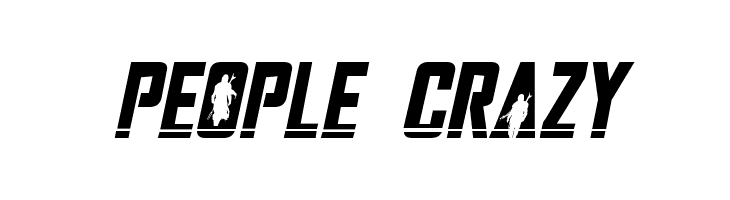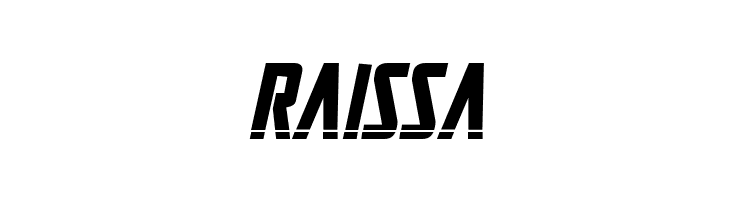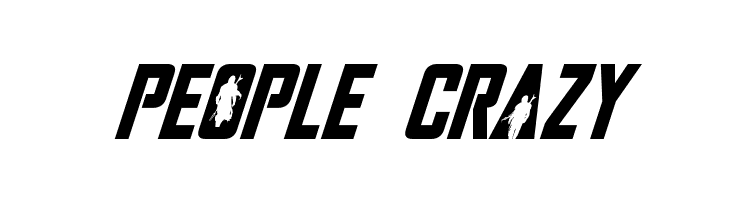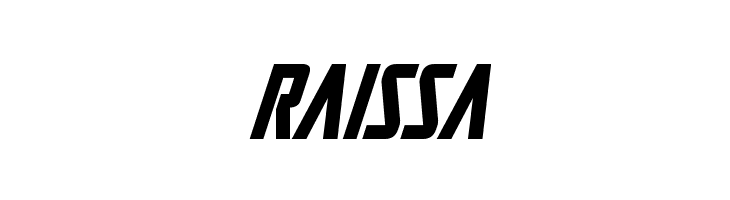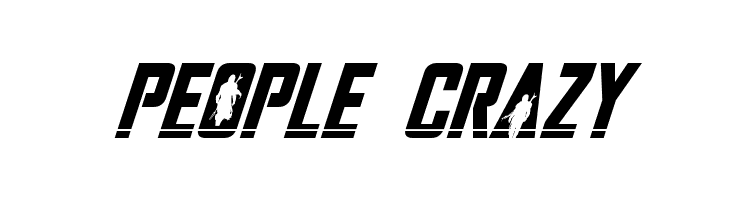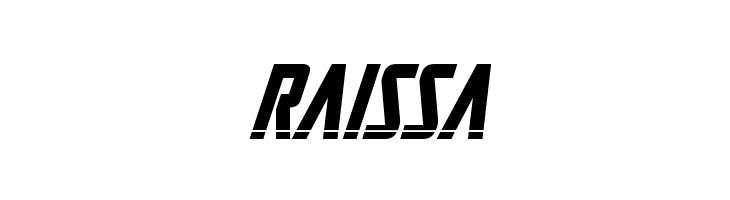
• Mandalore Laser Rough Italic
A bold, angular, and dynamic font with a futuristic and rugged style.
• Mandalore Laser Semi-Italic
A bold, futuristic font with a semi-italic slant and geometric design.
• Mandalore Laser Super-Italic
A bold, futuristic italic font with sharp angles and tight spacing.
• Mandalore Laser Title
A bold, futuristic font with geometric shapes and sci-fi elements.
• Mandalore Laser Title Italic
A bold, italicized font with a futuristic and dynamic design.
• Mandalore Leftalic
A bold, angular, and slightly italicized font with a futuristic style.
• Mandalore Rough
A bold, angular font with a rugged and adventurous style.
• Mandalore Rough Italic
A bold, italic, and angular font with a futuristic and dynamic style.
• Mandalore Semi-Italic
A bold, semi-italic typeface with geometric shapes and sharp angles.
• Mandalore Super-Italic
• Mandalore Title
A bold, geometric font with a futuristic and robust design.
• Mandalore Title Italic
A bold, italic font with sharp angles and a modern, dynamic style.
• Mandhy Regular
A bold, brush-style font with a hand-painted, artistic appearance.
• Manga
• Manga Bold Italic
A bold, italicized font with a geometric, angular design and futuristic aesthetic.
• Manga Hollow
A bold, geometric font with hollow interiors and angular lines, perfect for modern designs.
• Manga Hollow Italic
A bold, hollow, italic font with a modern, geometric style.
• Manga Italic
A bold, angular, and futuristic italic font with unique cut-out details.
• Mangarans II DEMO
• Mango Drink
A playful, bold font with a hand-drawn, informal style.
• Mango Sticky
A playful handwritten font with a casual and friendly appearance.
• MangoSign